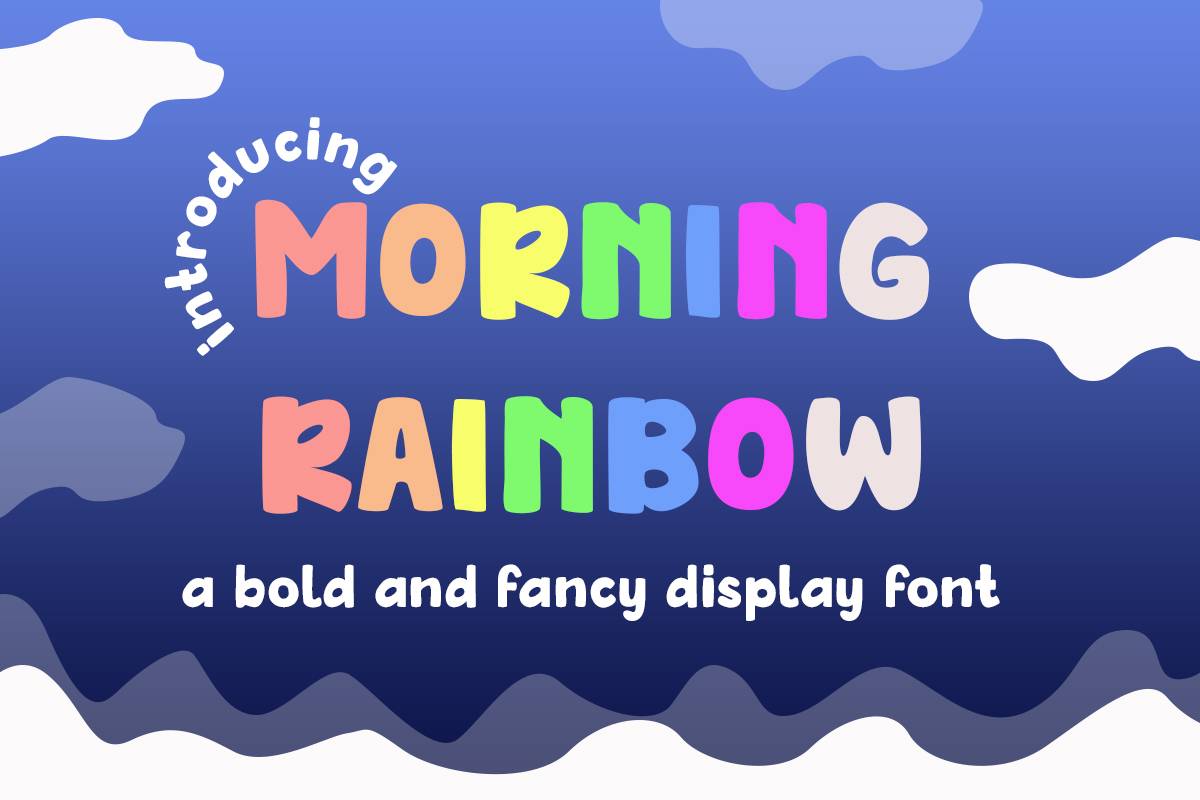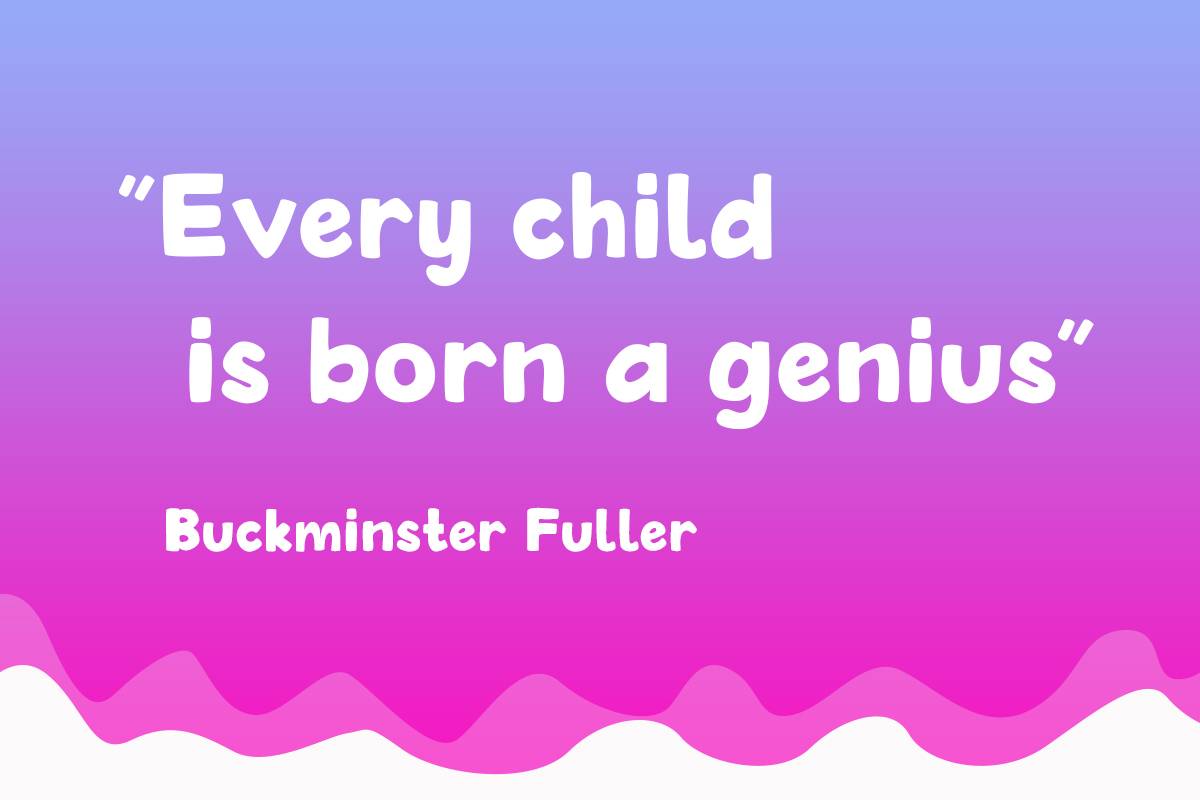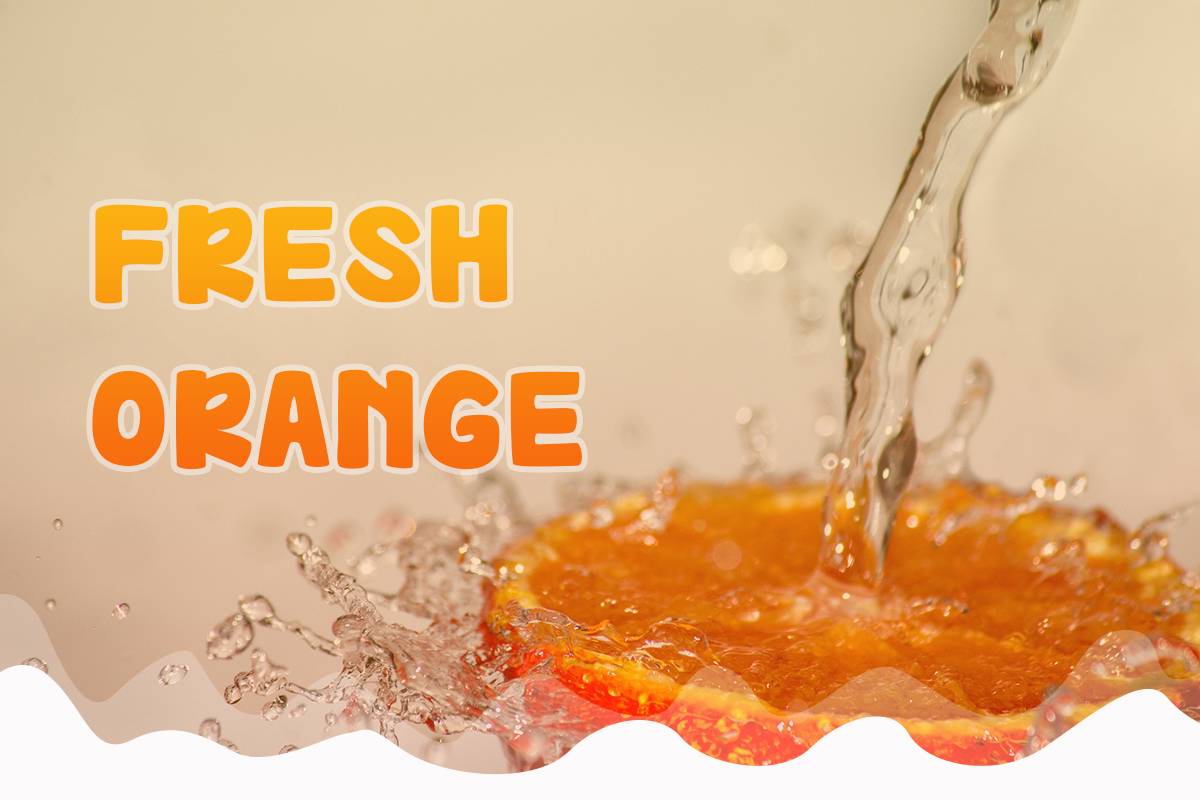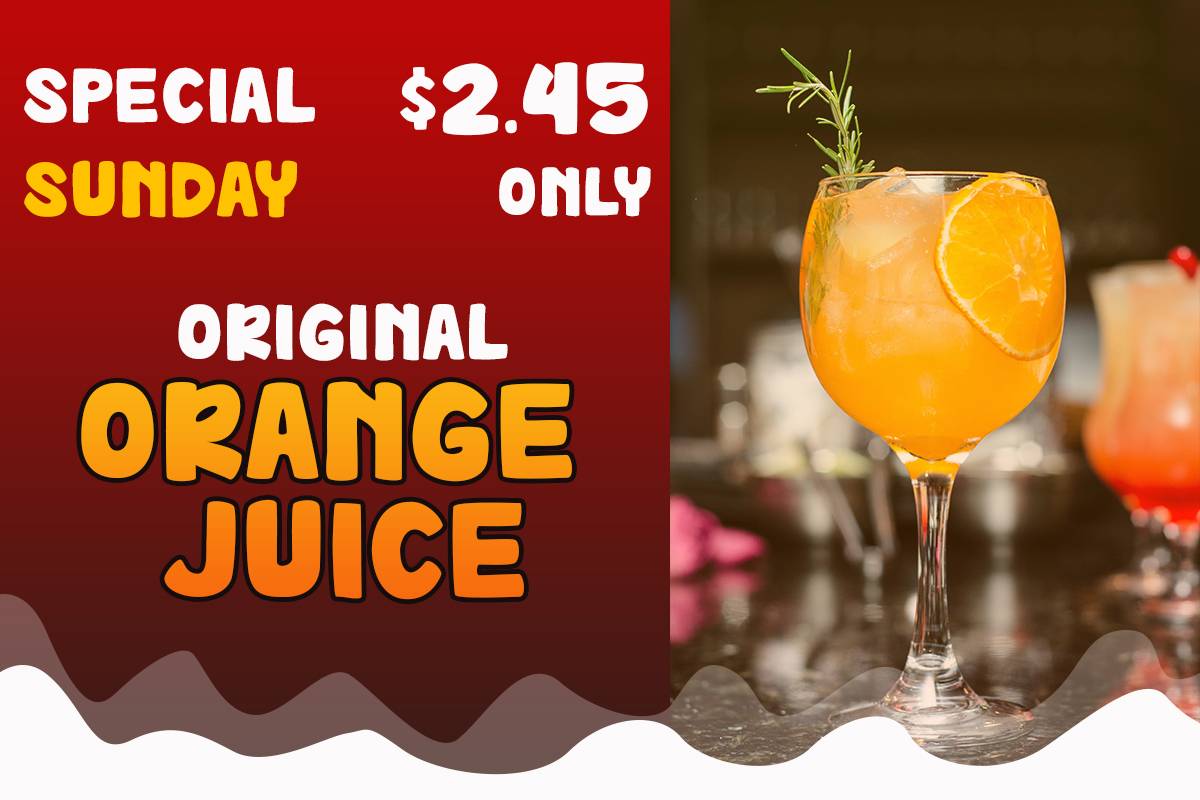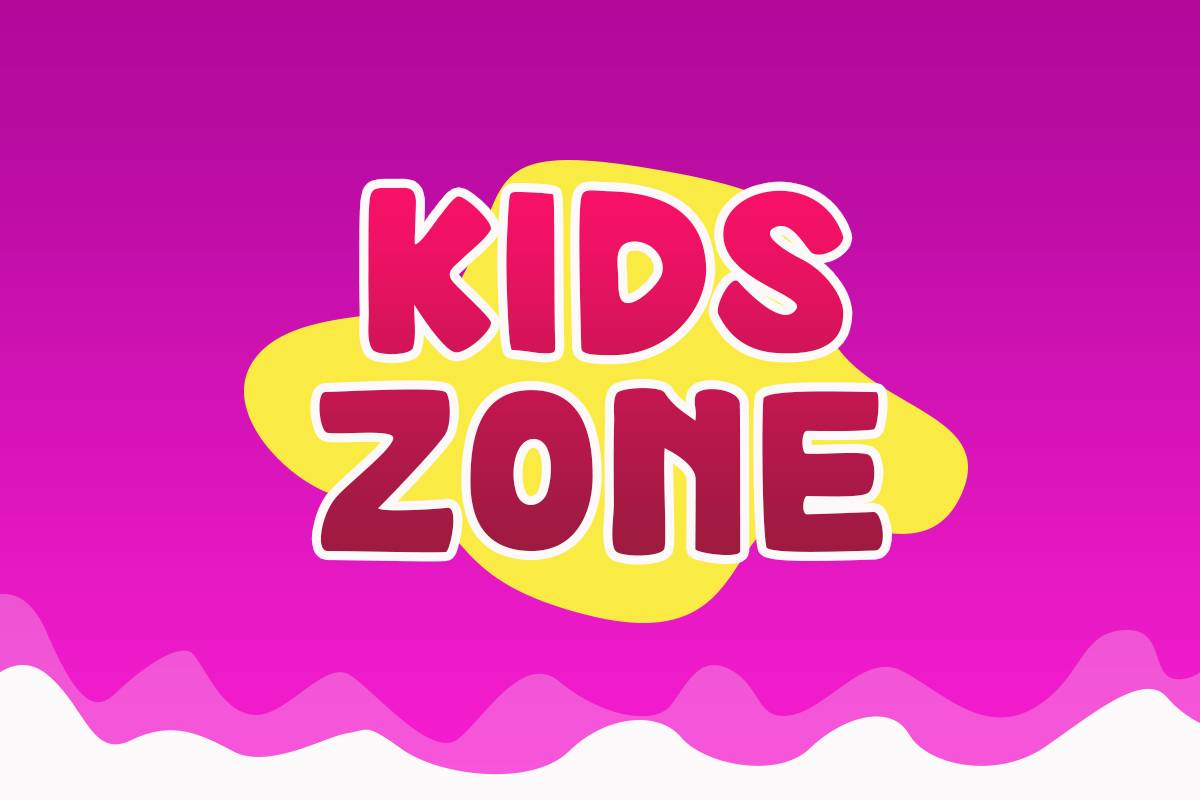
Morning Rainbow is a bold, playful sans serif font with rounded edges and a friendly, informal vibe. Its thick, slightly irregular letterforms and generous spacing make it perfect for casual branding, children’s books, and fun headlines that need a warm and approachable tone. This font works well wherever you want to add personality and a cheerful feel.
Morning Rainbow Font
About Morning Rainbow Font
| Font family | Morning Rainbow Font |
| Release date | 2021-06-21 |
| Designer | Jony Suharsono |